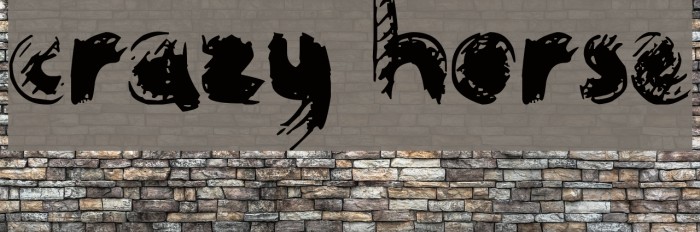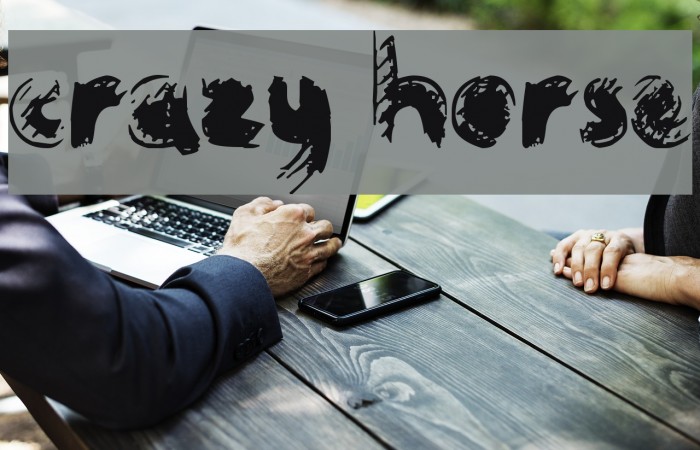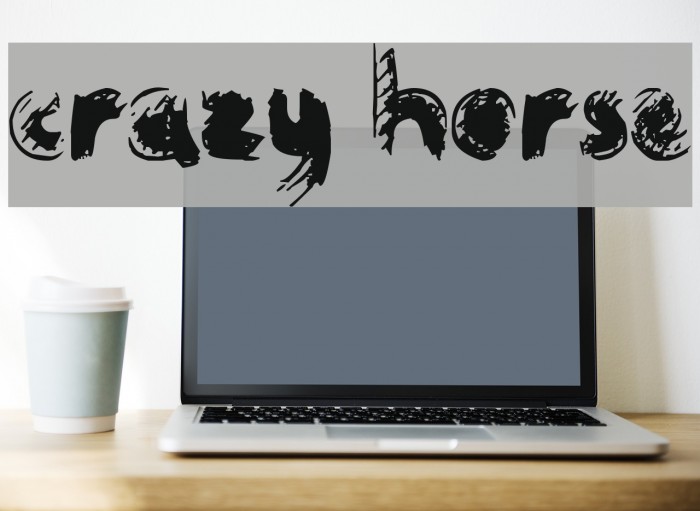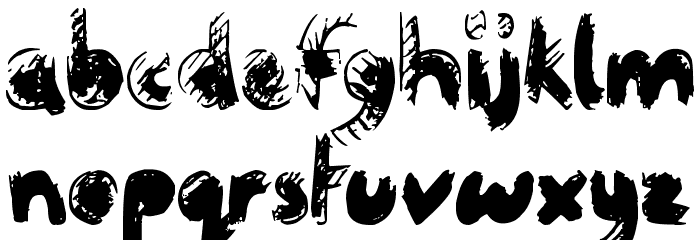
Crazy Horse Font
✎ Distorted Eroded
Crazy Horse Description
This font features a bold and rugged style, characterized by its distressed and textured appearance. Each letter is uniquely crafted with rough edges and a hand-drawn feel, giving it a wild and untamed look. The strokes are thick and uneven, creating a sense of movement and energy. This font is perfect for projects that require a raw and edgy aesthetic, such as posters, album covers, or branding for unconventional products. Its distinctive style makes it stand out, ensuring that any text set in this font will capture attention and convey a sense of rebellion and creativity.
| Proposed Projects | Ideal for posters, album covers, and edgy branding projects. |